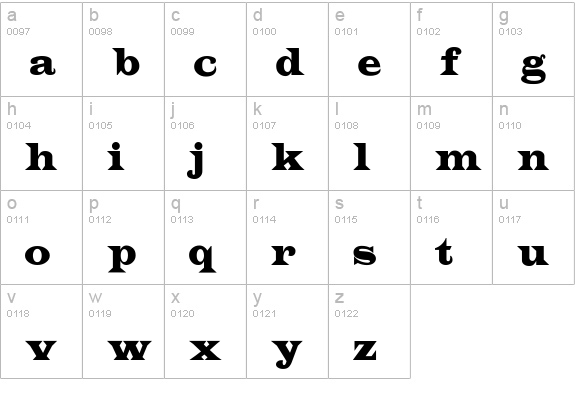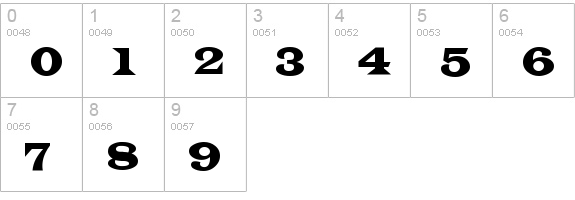
Indubitably Font Details
Indubitably font is a stunning typeface that effortlessly combines elegance and modernity. With its clean lines and sophisticated curves, this font exudes a sense of refinement and professionalism, making it a perfect choice for a wide range of design projects. Indubitably font is not only visually appealing but also highly versatile. Whether you're creating a logo, designing a website, or working on a branding project, this font will elevate your work to new heights. Its timeless aesthetic ensures that it will remain relevant and impactful for years to come. One of the most remarkable aspects of Indubitably font is that it is available for free. That's right, you can easily download this font at FontsMarket.com without spending a dime. This makes it accessible to designers and creatives of all levels, allowing them to add a touch of sophistication to their projects without breaking the bank. Indubitably font is a true gem in the world of typography. Its sleek and modern design, combined with its availability as a free download, makes it a must-have for any designer or typographer. Don't miss out on the opportunity to enhance your designs with this incredible font. Head over to FontsMarket.com and get your hands on Indubitably font today.